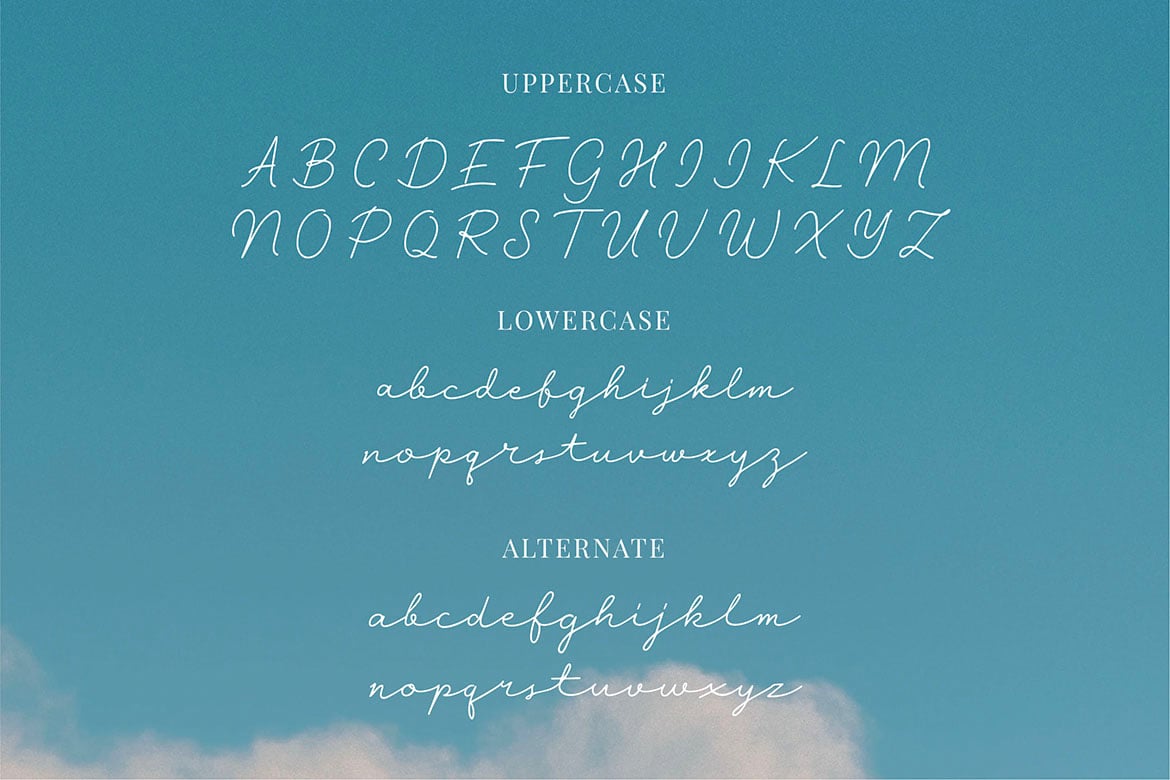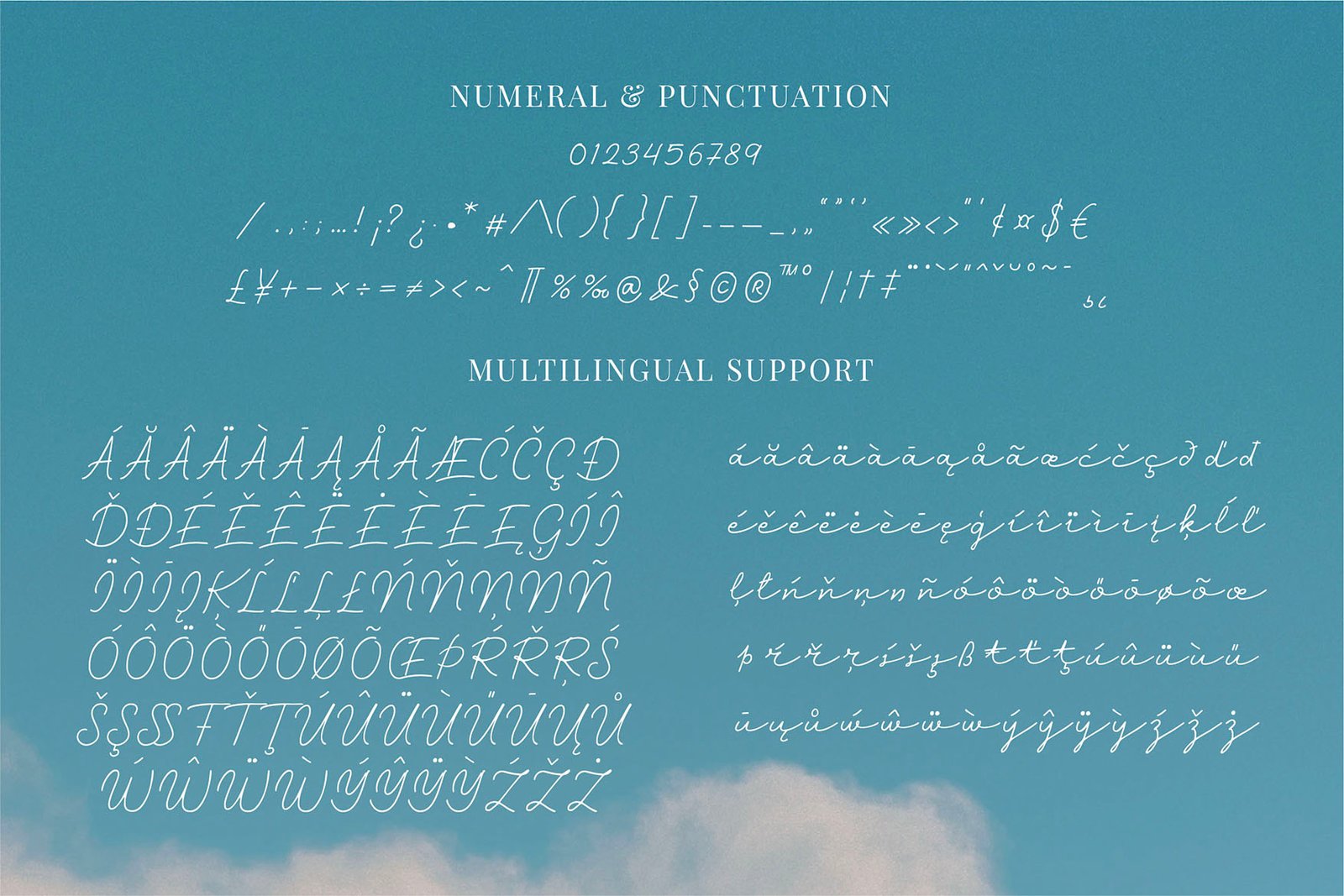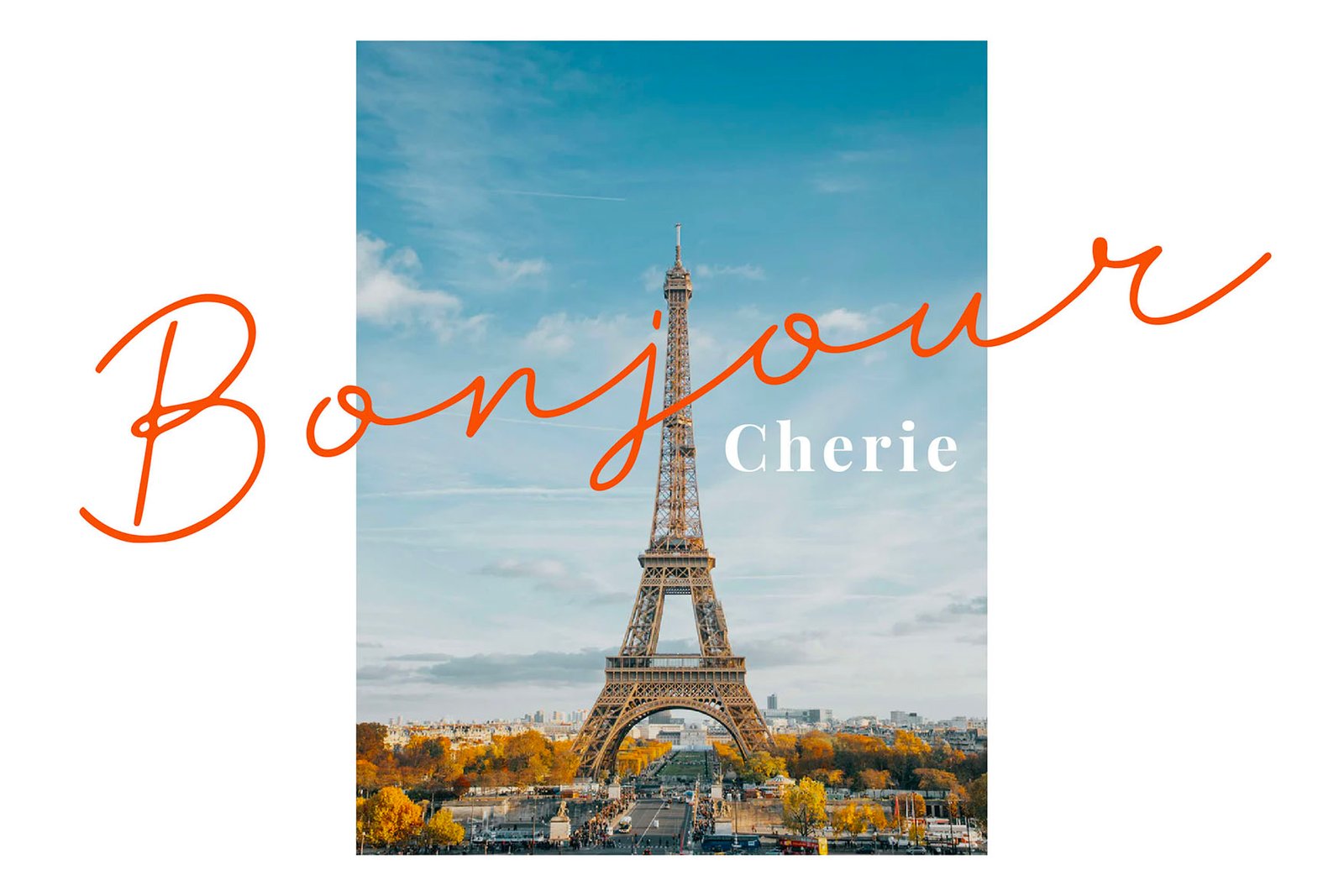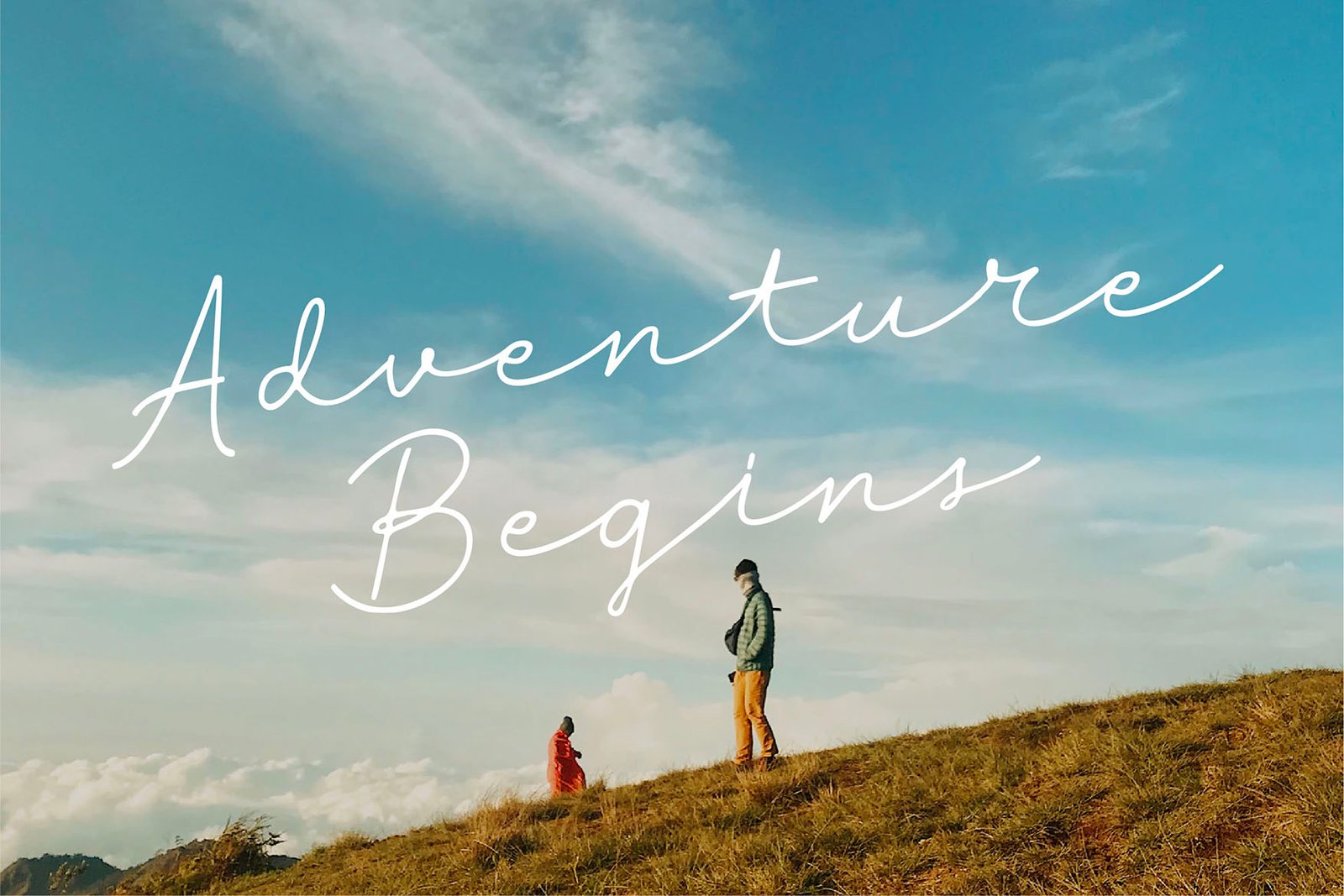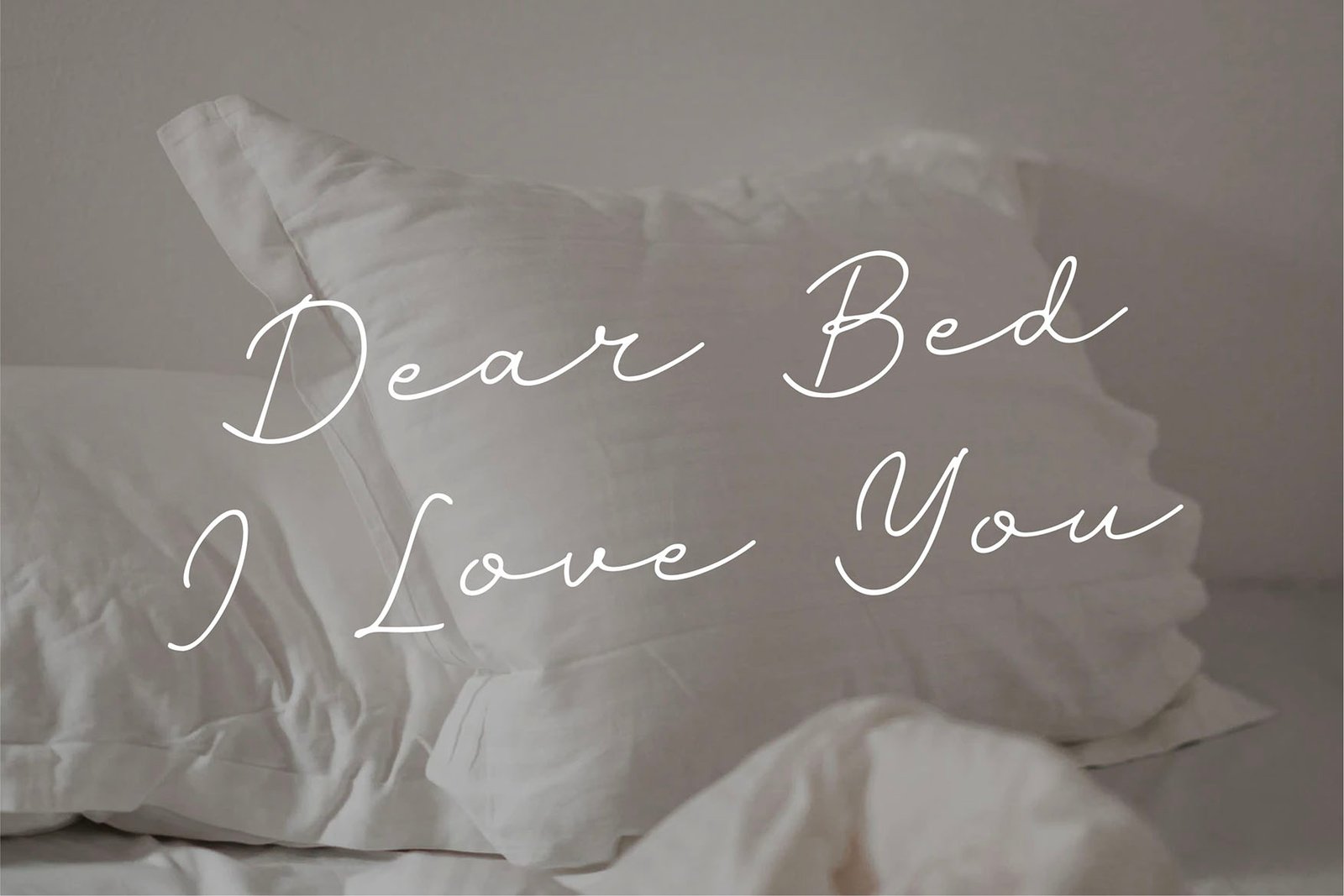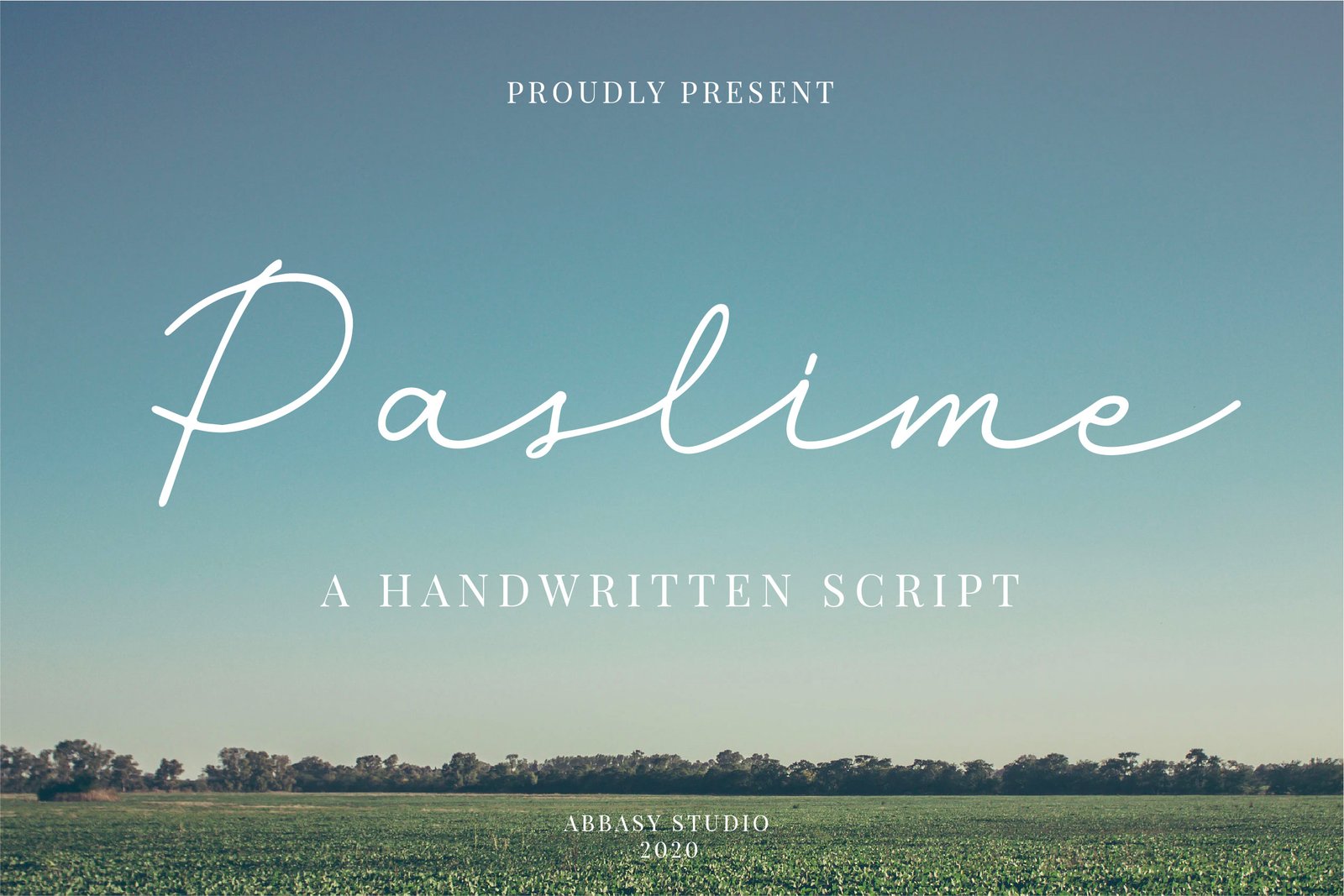
Paslime Font
Paslime is a Script Font with Handwritten Style. The Paslime font made with digital brush pen strokes that making this font look authentic. This font is perfect for fashion brand, wedding invitation, business card, logo brand, signature, and then calligraphy.
- Alternate
- Multilanguage Support